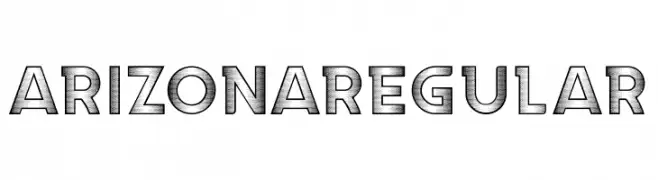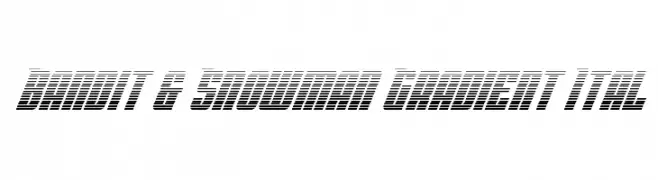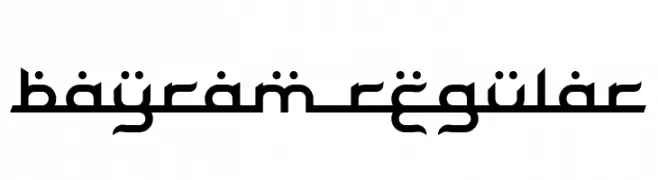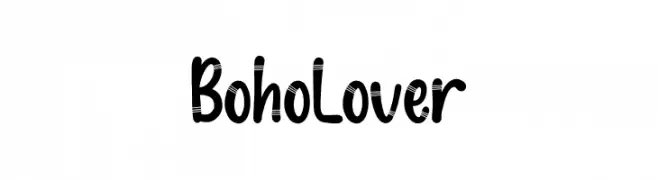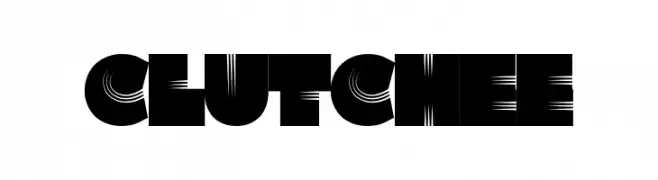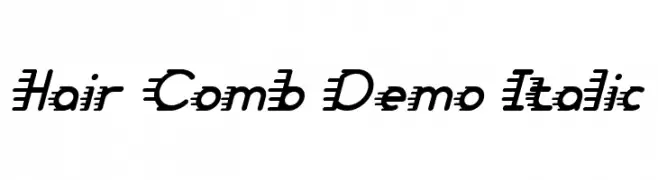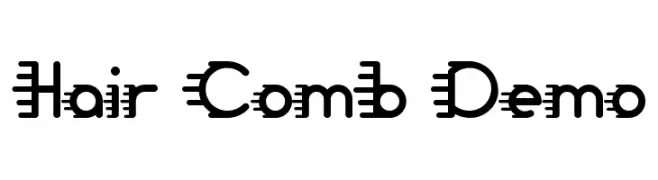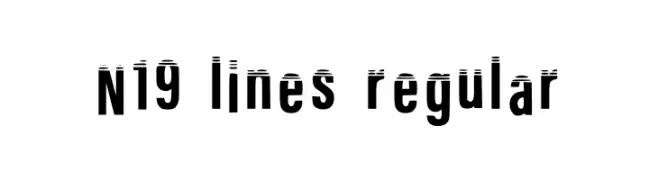
A bold, italicized font with a dynamic gradient effect and horizontal line design.
A bold, italicized font with a gradient effect and dynamic horizontal lines.
A bold, italic font with dynamic horizontal lines for a sense of movement.
A playful, decorative font with comb-like horizontal lines extending from each character.
A modern, geometric font with sharp angles and horizontal lines.
A bold, textured font with a unique horizontal line design.
A bold, modern font with a blurred, dynamic effect and horizontal line pattern.
A bold, modern font with horizontal line accents for a dynamic look.
A bold, geometric font with horizontal line patterns for a modern look.
A playful, decorative font with bold, rounded characters and unique horizontal lines.